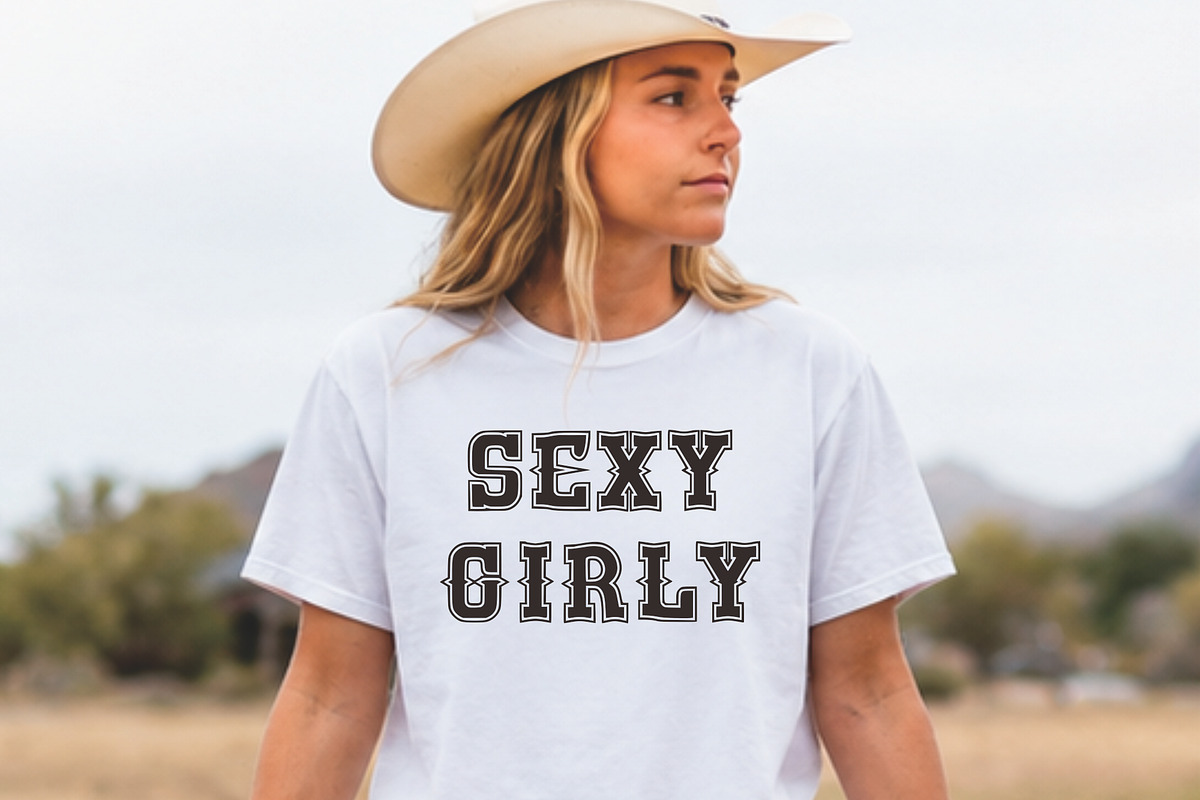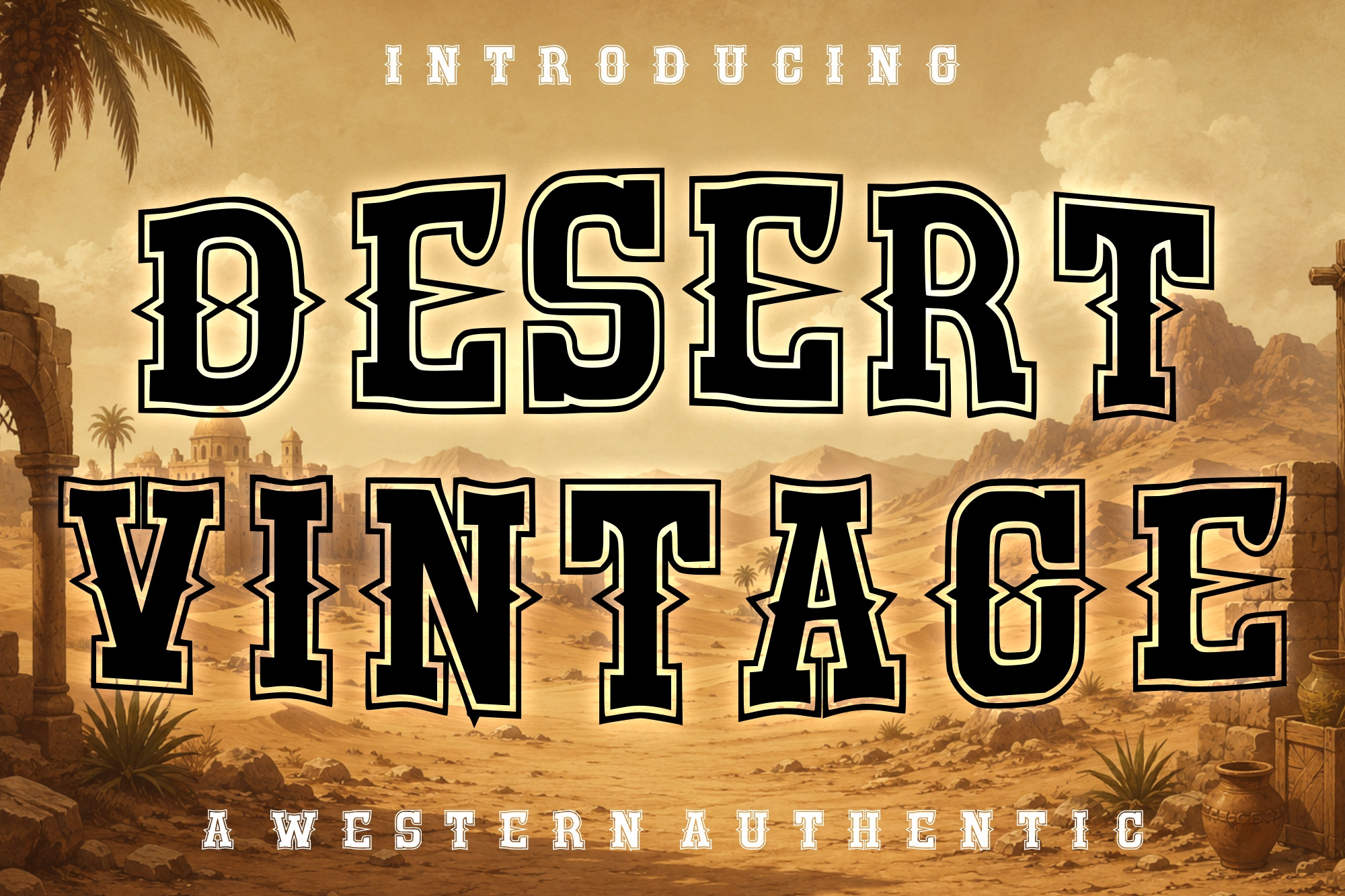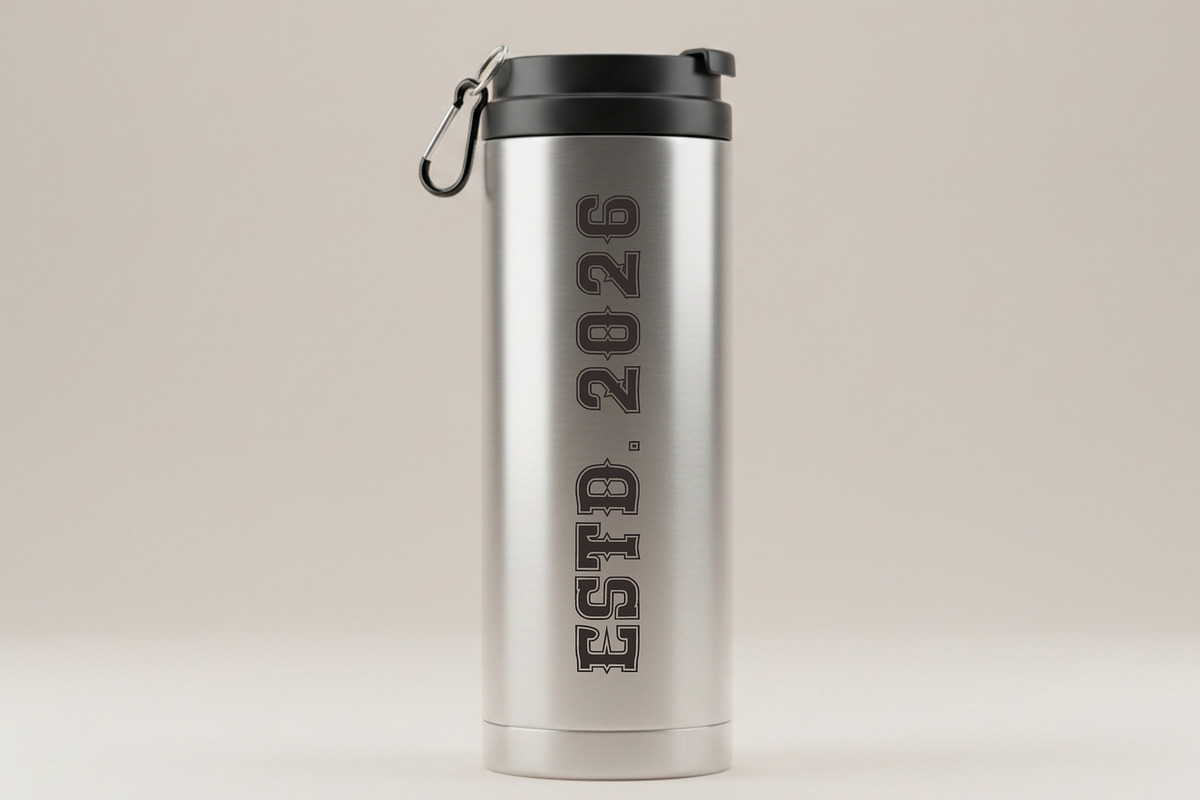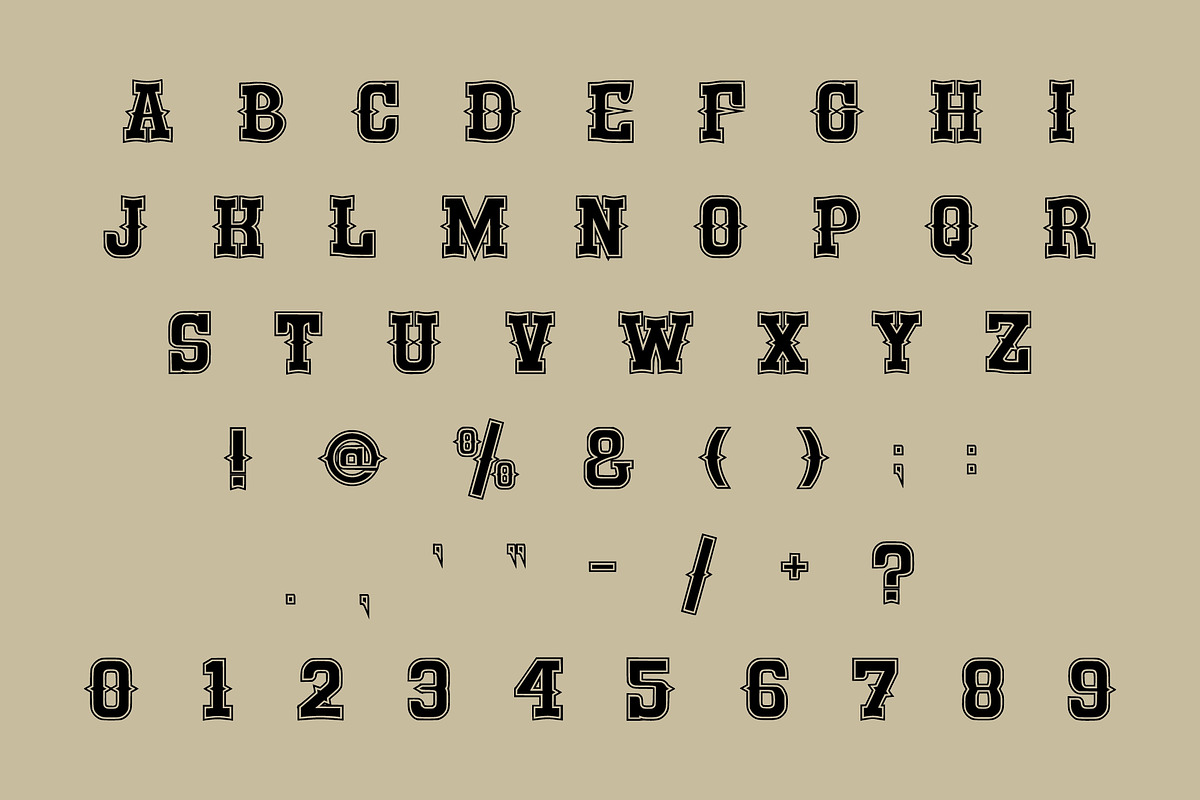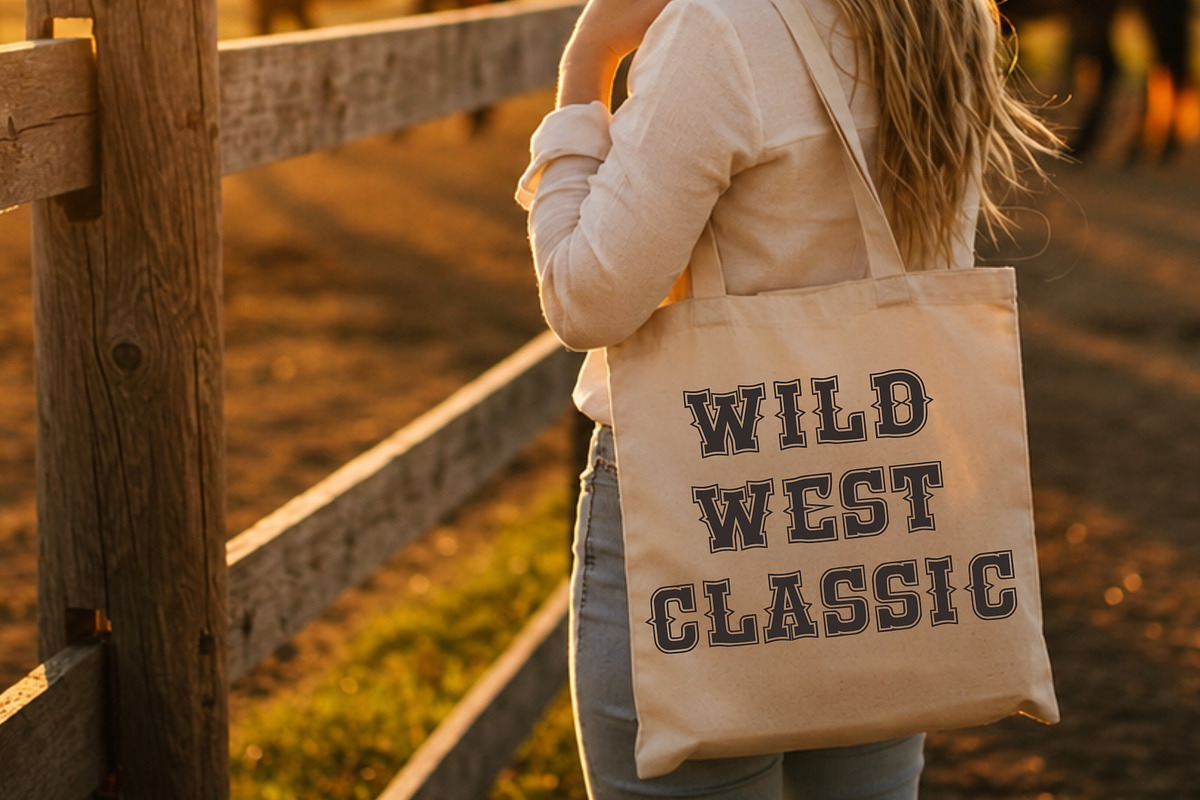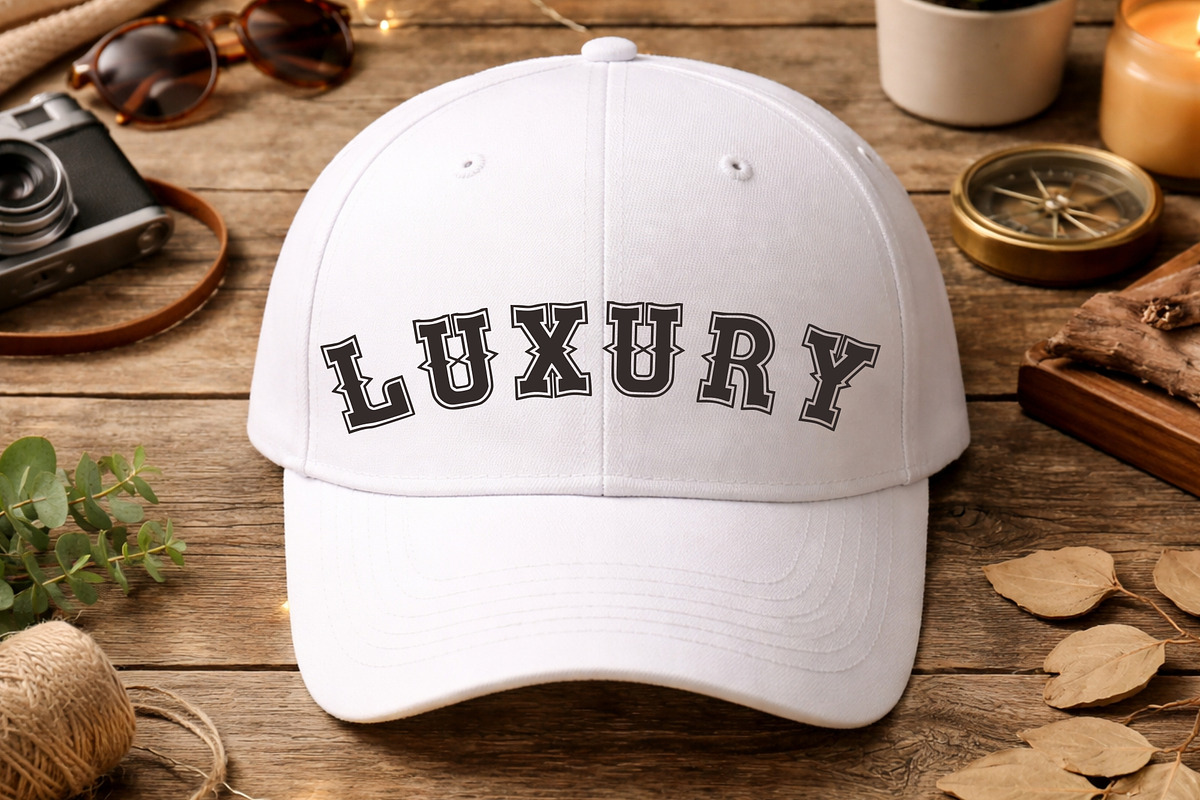
Desert Vintage - Western font
Desert Vintage is a bold western-inspired display font that captures the spirit of the American frontier. Featuring classic cowboy letterforms, decorative serifs, and authentic vintage styling, this typeface is perfect for creating eye-catching headlines with a timeless Wild West atmosphere.
Inspired by old saloon signs, western movie posters, desert adventures, and frontier branding, Desert Vintage brings a rugged yet elegant character to your designs. The bold structure and ornamental details make it ideal for projects that demand a strong vintage western presence.
Perfect for logos, posters, packaging, book covers, event promotions, apparel designs, restaurant branding, whiskey labels, country-themed graphics, and retro advertising.
Uppercase Letters
Western Decorative Style
Vintage Display Typeface
Western Logos
Cowboy Branding
Vintage Posters
Saloon Signs
Country Events
Ranch Branding
Whiskey Labels
T-Shirt Designs
Retro Packaging
Movie Titles
Adventure Graphics